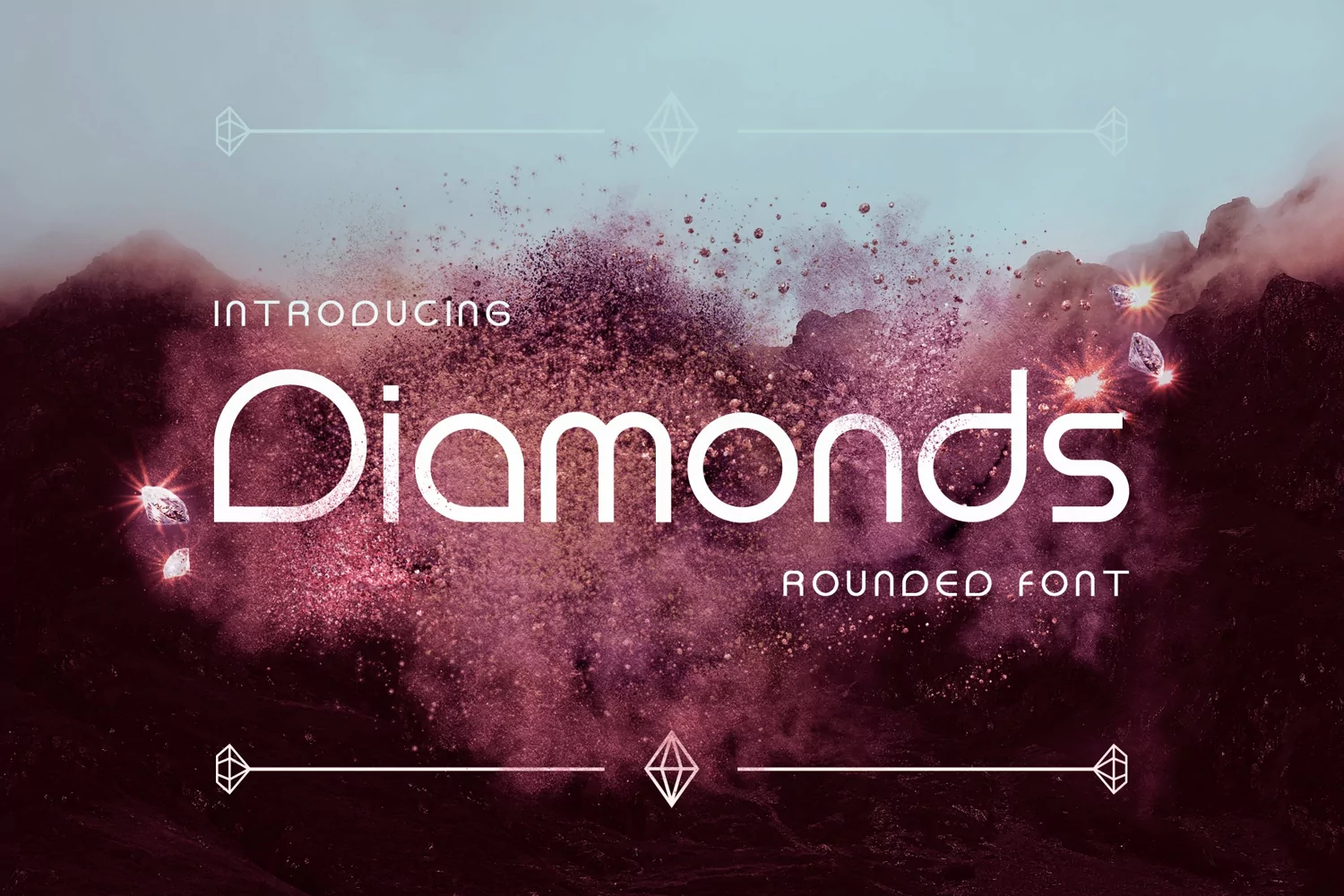
Diamonds is a unique rounded font. With a special feeling to it, Diamonds is great for logos, branding, posters headlines and can be used for much more. Add some unique characteristics to your next project or design with Diamonds font!